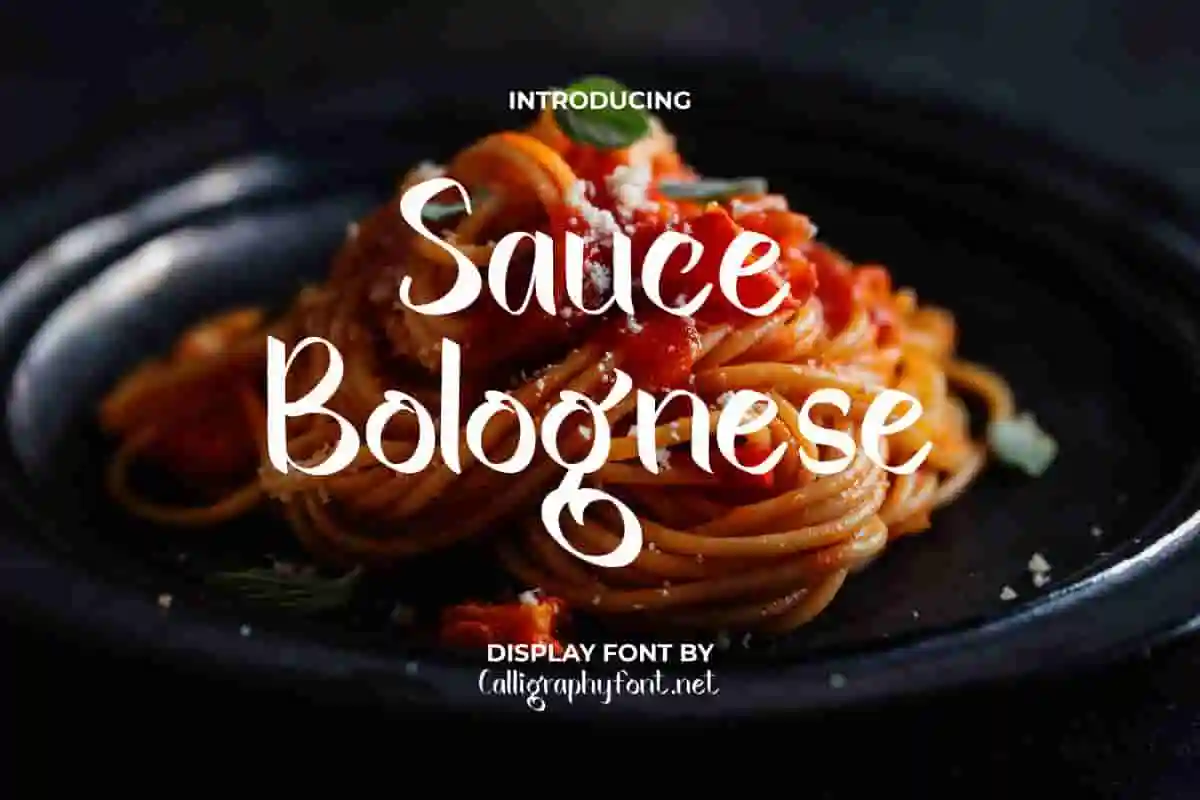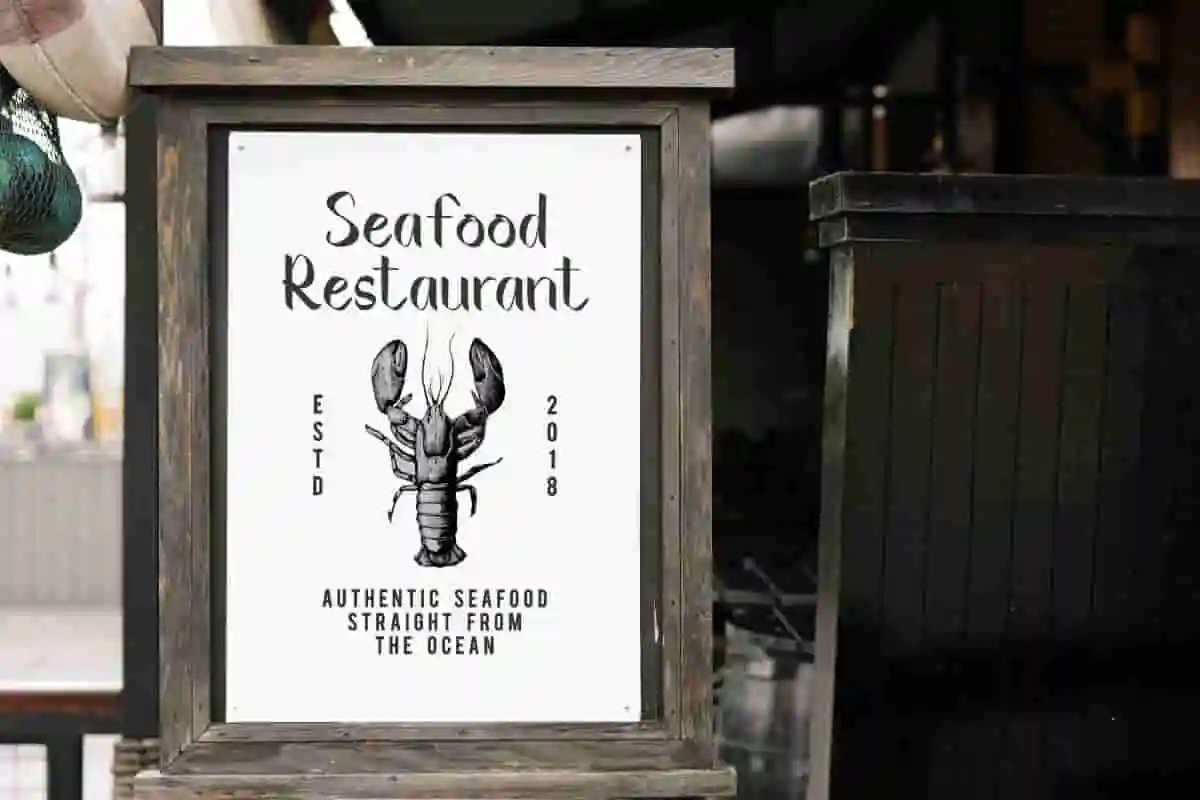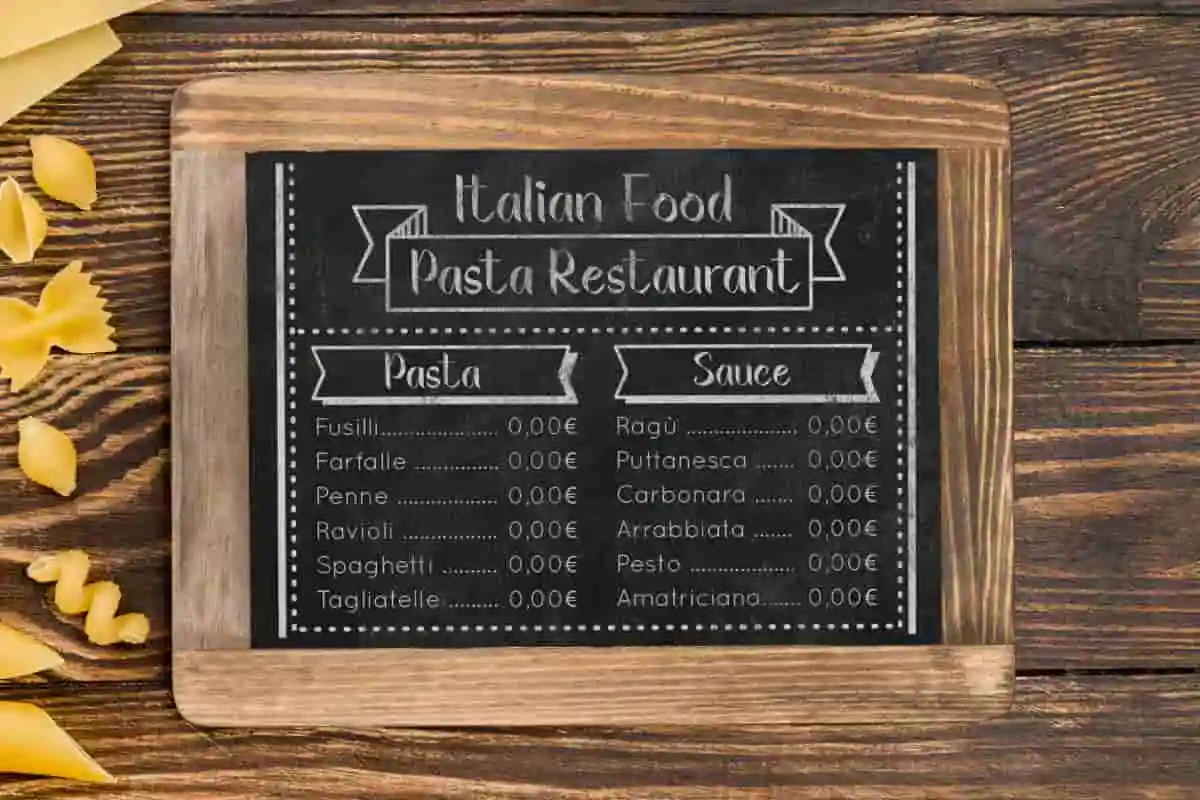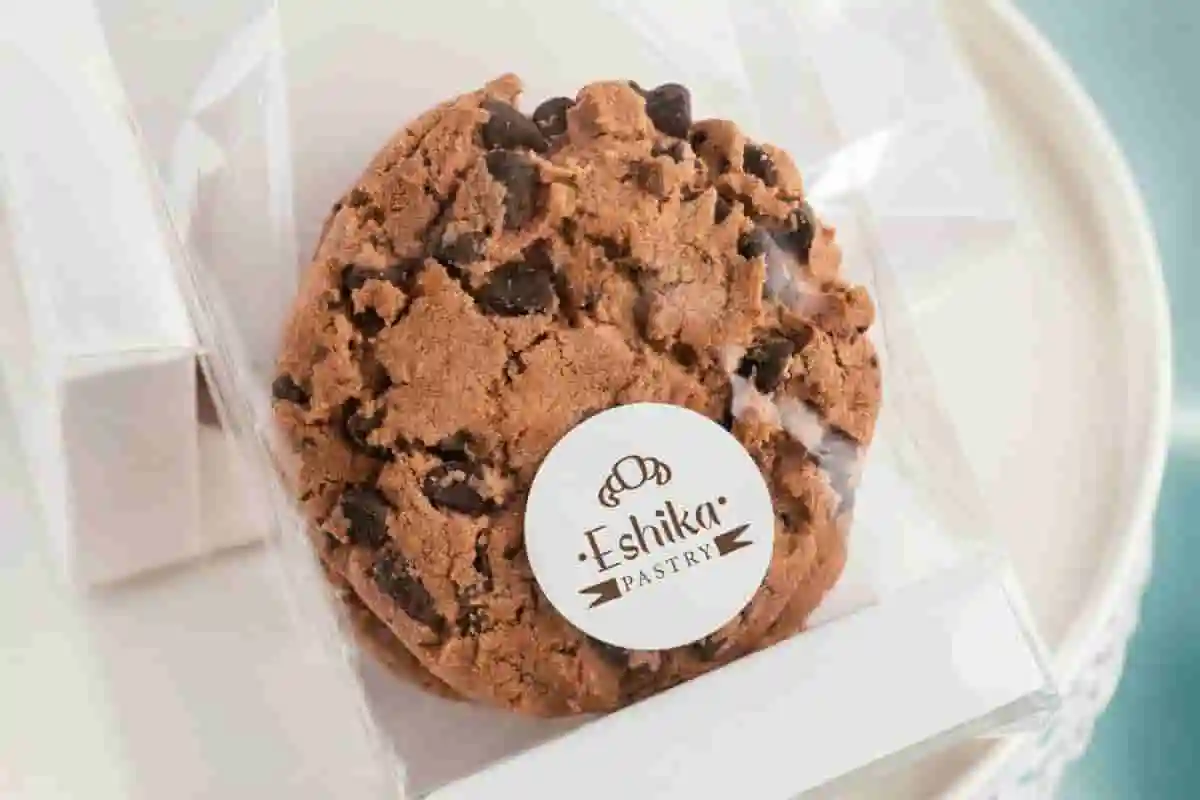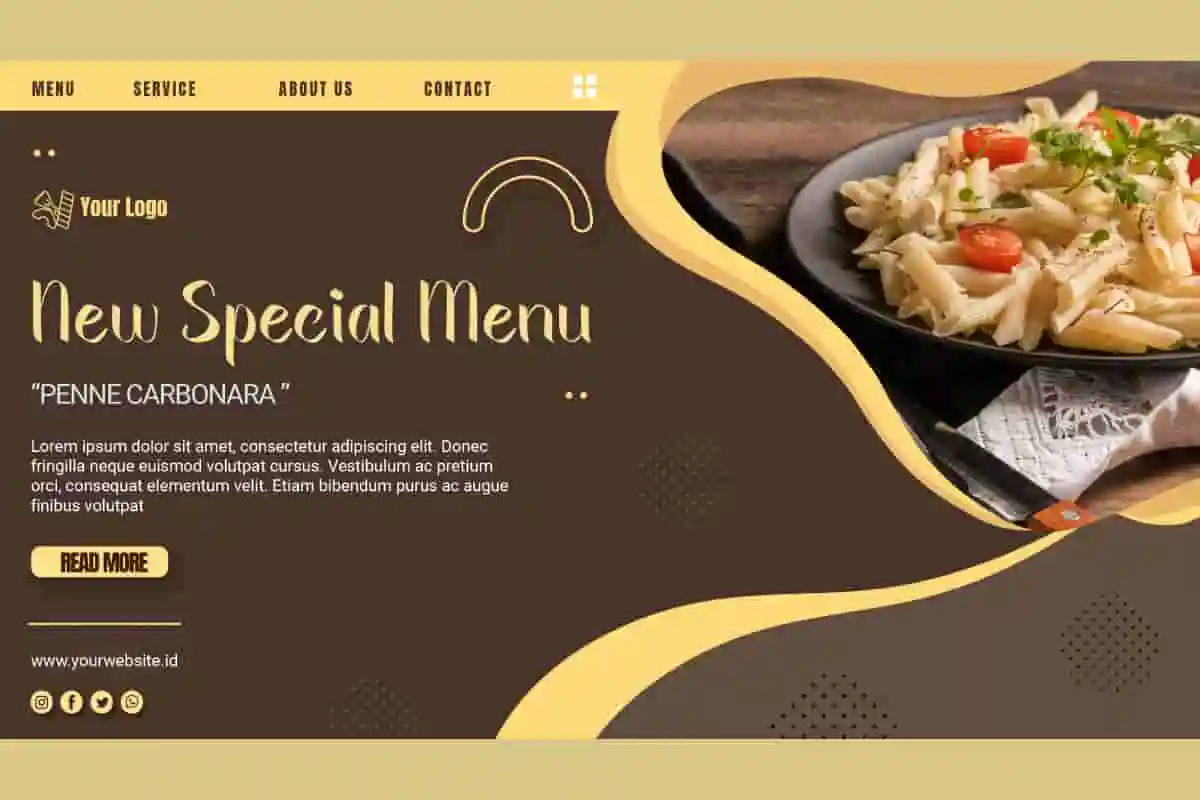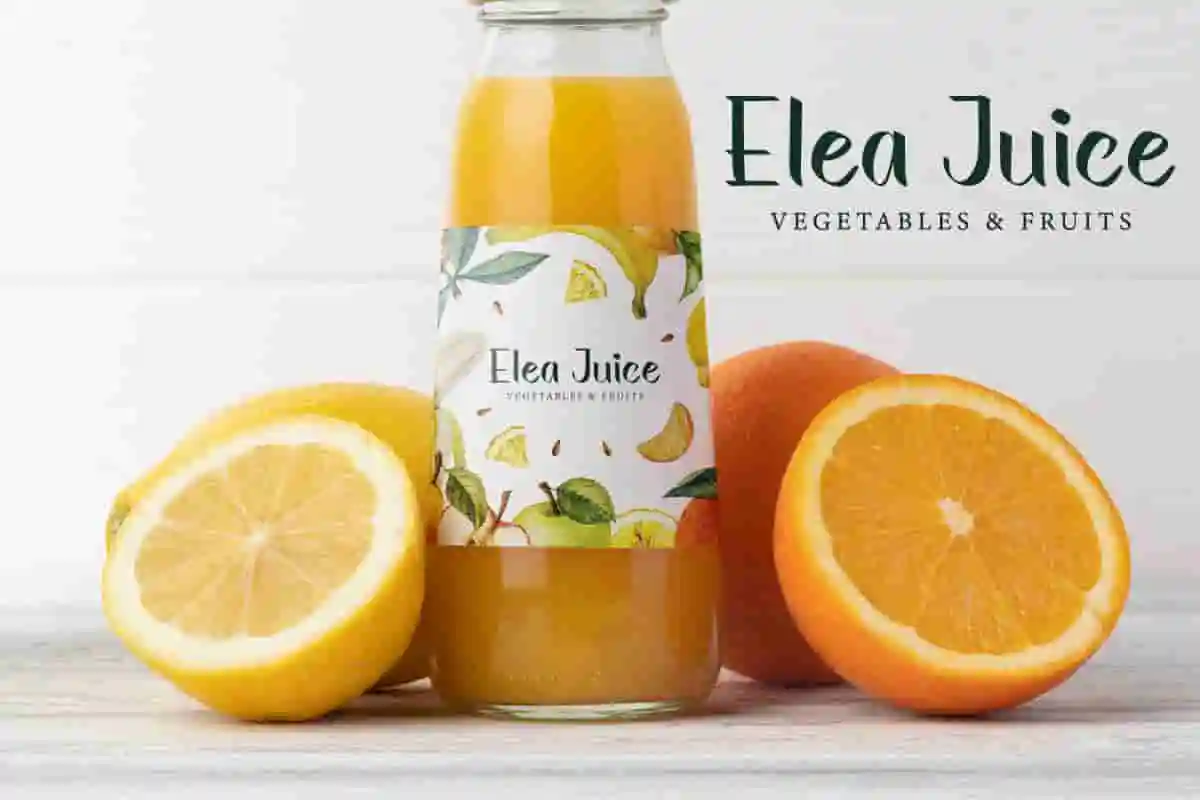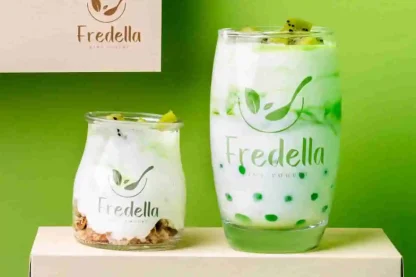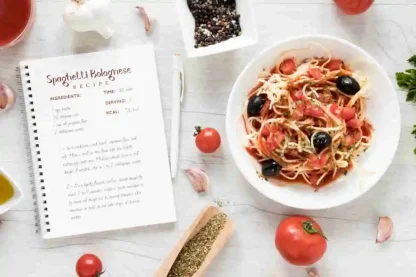
Sauce Bolognese Font
Sauce Bolognese Font is a charming handwritten brush font, ready to be a part of you! You can be sure that you will be able to give the nuances of Italian cuisine.
Sauce Bolognese Font is a modern stylish display font with beautiful brush strokes around each character. Typography that elevates the concept of pasta so that the appearance of the writing tends to be slightly flattened on one side and thickens to thin perfectly like the type of pasta. It would be tempting to accompany you in whatever your project, such as apps, billboard, brand logo, brochure, flyer, label, menu, product packaging, stationery, signage, sticker, title, website, and many more.
Looking for a font that is bold, fun, and full of character? Introducing Sauce Bolognese Brush Font, a deliciously styled display typeface that brings energy and warmth to any design. Just like its name, this font adds the perfect “seasoning” to your projects, making them stand out with a playful yet professional look.
Sauce Bolognese Brush Font is crafted with a modern display style that combines quirky shapes and smooth curves. Its versatility makes it perfect for branding, logos, posters, packaging, social media graphics, invitations, and more. Whether you’re creating content for a food business, a creative startup, or simply want to add personality to your design, this font is your secret ingredient.
Why choose Sauce Bolognese Brush Font? Because it’s more than just letters—it’s a creative tool that adds emotion, character, and style. It’s easy to use, compatible with all major design software, and delivers professional results effortlessly.
Don’t settle for bland typography. Add boldness and creativity to your projects with Sauce Bolognese Brush Font today. Perfect for designers, business owners, and anyone who wants their work to make a lasting impression.
Sauce Bolognese Brush Font is an attractive handwriting with amazing taste. It will be great for any industry, including: advertisement, author, bakery, beverage products, café, content creator, cooking course, culinary, event organizer, graphic design, handicraft, homeware, juice stall, interior design, photography, printing, publishing, seafood restaurant, vlogger, wedding, writer, etc.